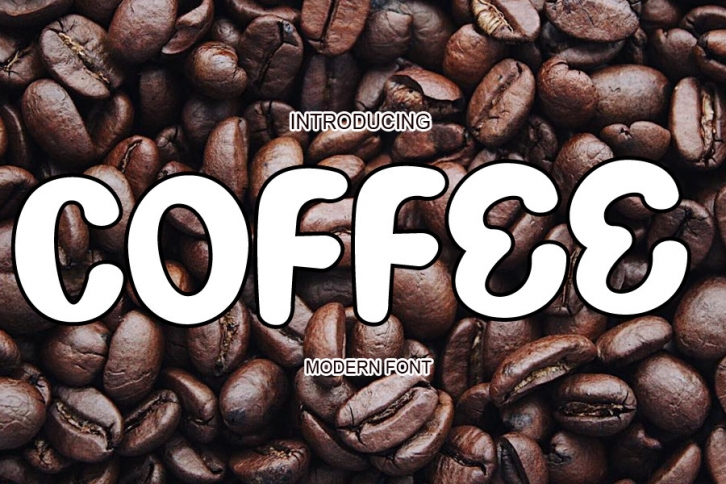
Coffee is a bold, friendly display font featuring the perfect amount of trendiness. Whether you’re using it for crafting, digital designing, presentations or greeting cards making, it’s perfect!